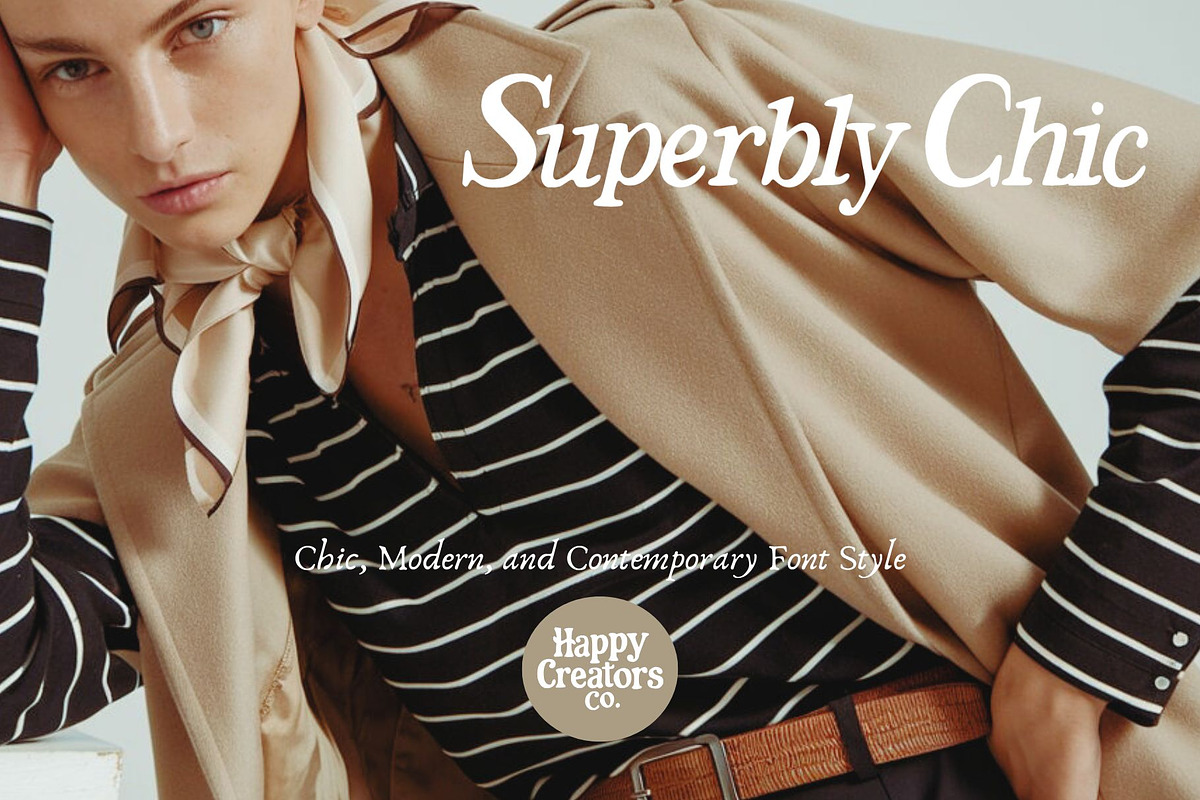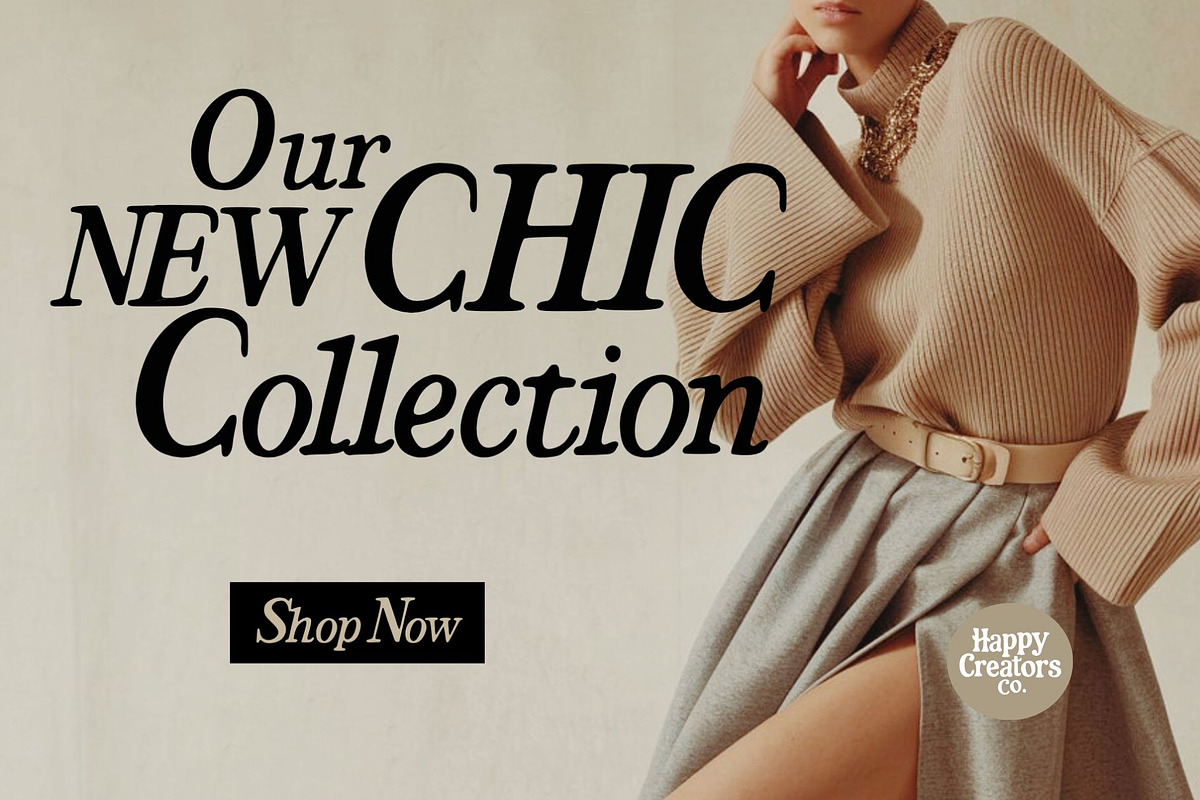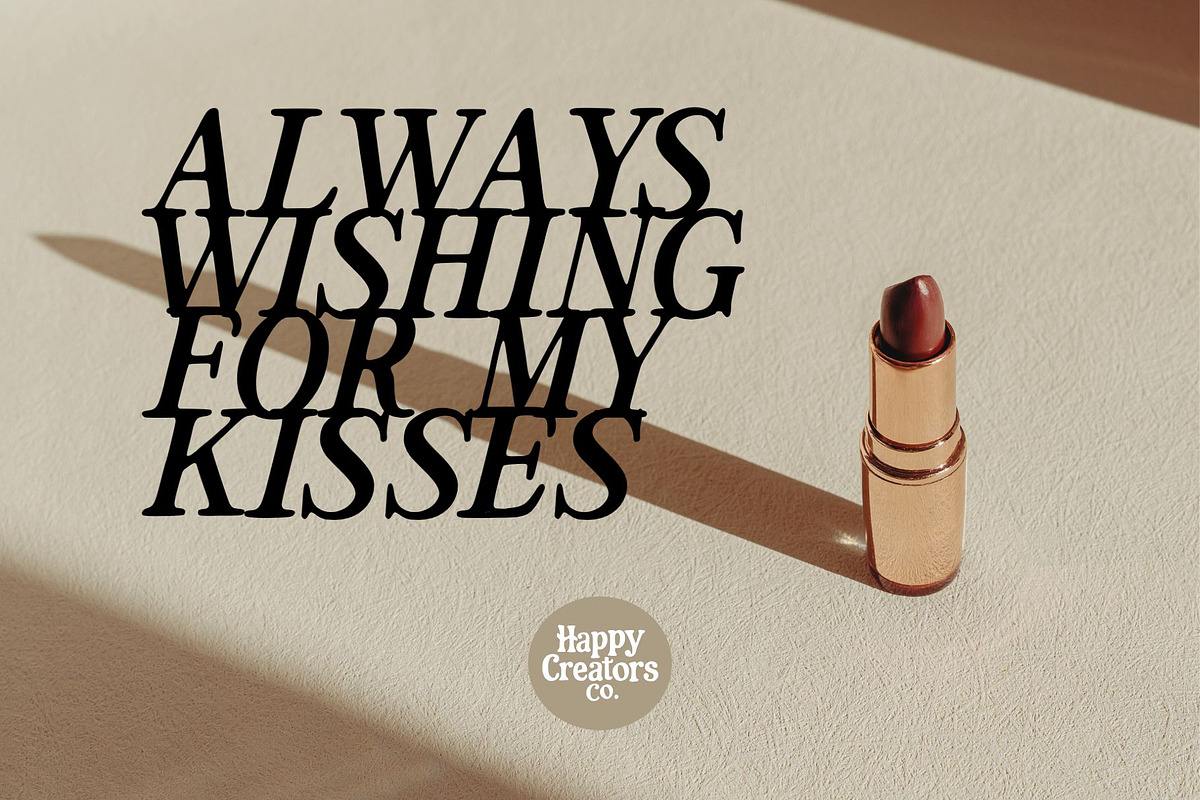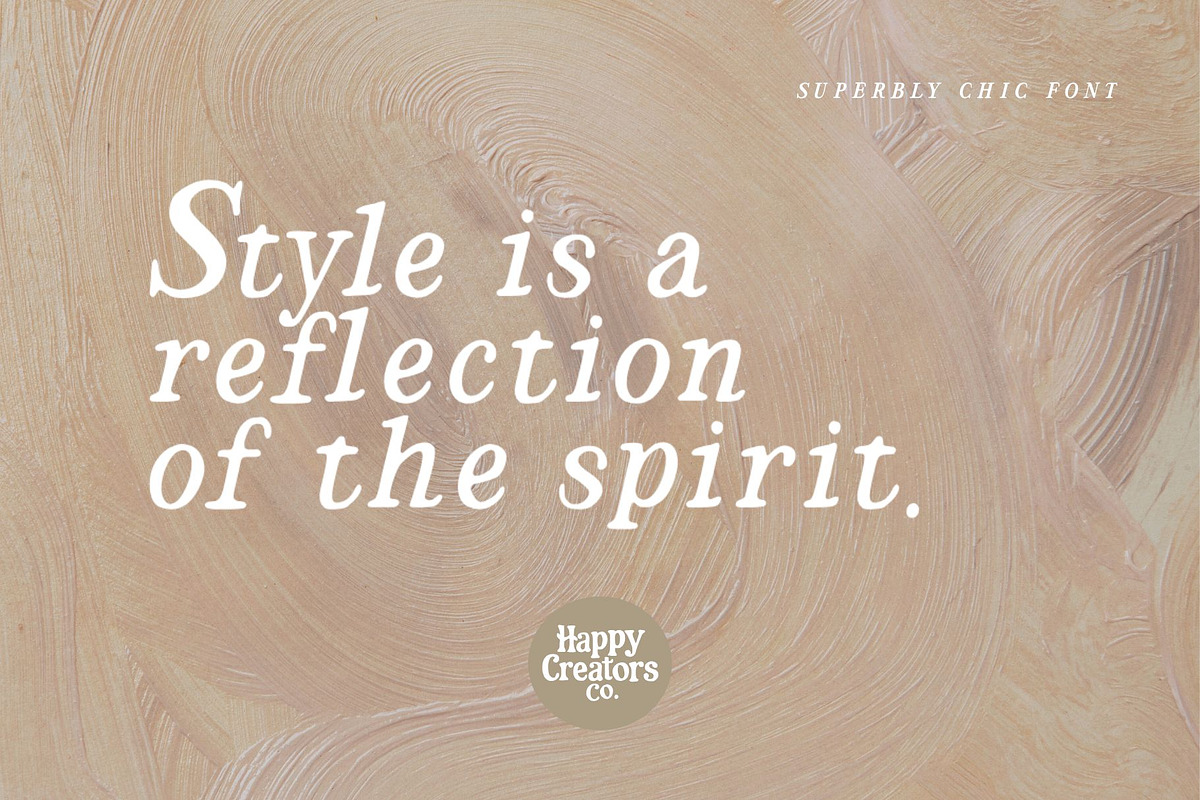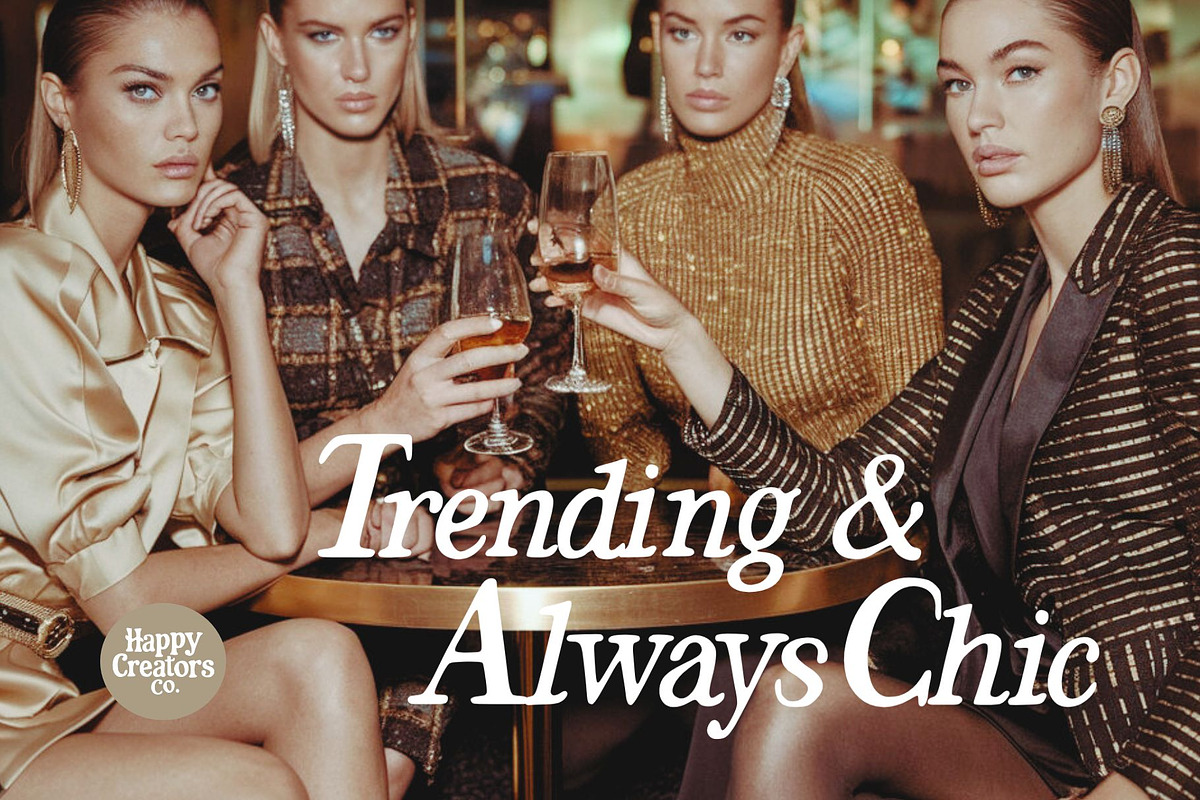
Superbly Chic Font
Superbly Chic is a chic, elegant, modern, and contemporary font style that exudes modern chic sophistication and vibrancy. This decorative typeface brings a touch of stylish refinement to any project. Superbly Chic features smooth, continuous strokes and playful, dynamic characters that add a sense of liveliness and energy to your designs. Whether you're creating high-end fashion logos, chic social media posts, or elegant invitations, Superbly Chic adds a touch of timeless beauty and contemporary flair to your work. Embrace the sophisticated aesthetic and elevate your designs with this versatile and stylish typeface.
Chic, modern, elegant, and contemporary style
Smooth and continuous strokes
Playful and dynamic characters
Decorative Typeface